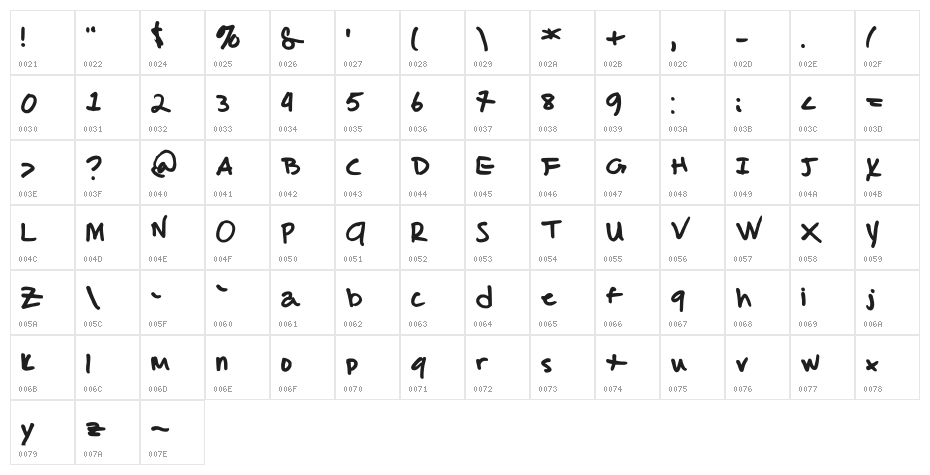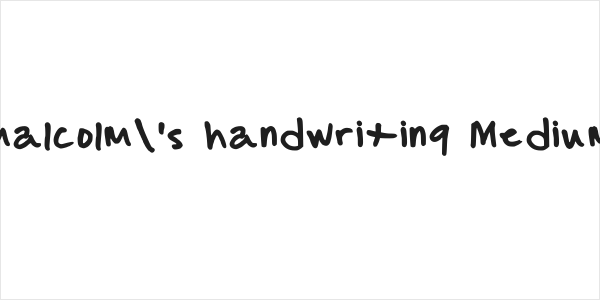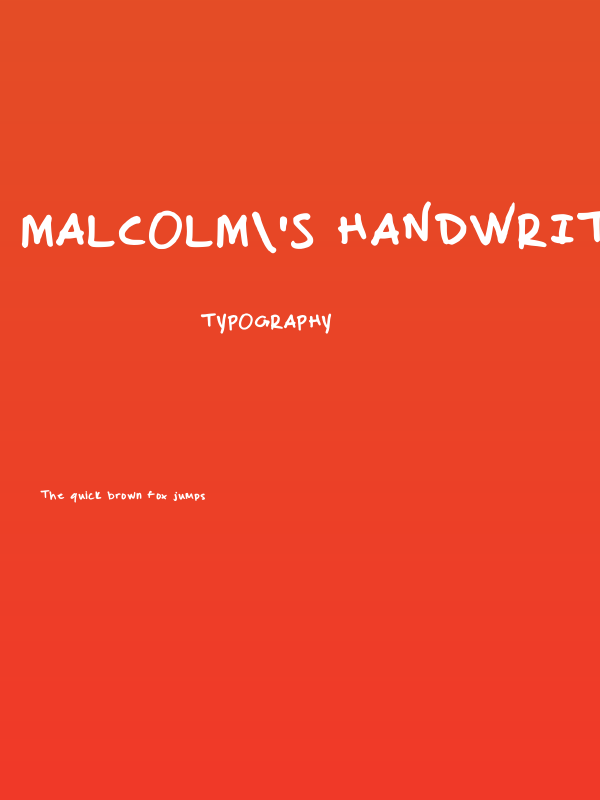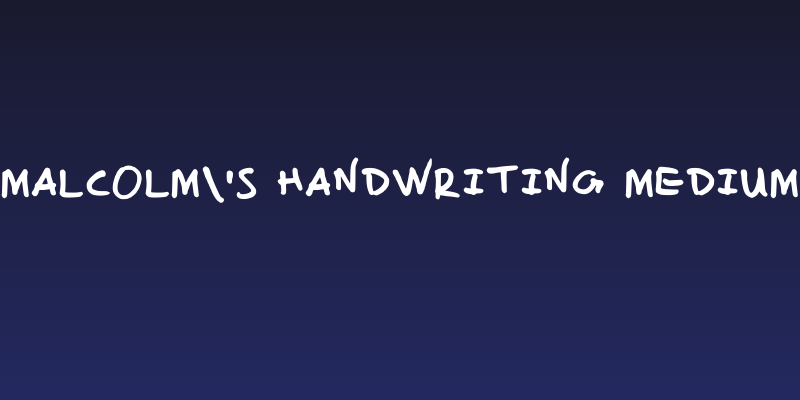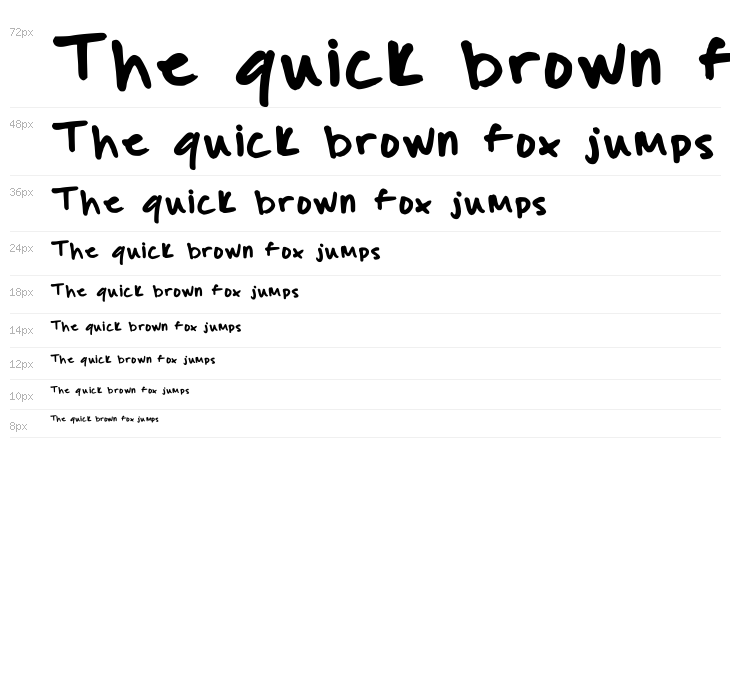
malcolm's handwriting Medium Font
malcolm's handwriting Medium Description
This font exudes a casual and playful handwritten style, characterized by its bold and slightly irregular strokes. The letters have a natural flow, mimicking the spontaneity of real handwriting. The uppercase and lowercase letters maintain a consistent style, with rounded edges and a slight slant that adds to its informal charm. Numbers and special characters are crafted with the same playful touch, making them easily recognizable and visually appealing. The overall appearance is friendly and approachable, suitable for projects that require a personal touch.
| Use Case | Headlines, Informal text, Branding |
| Proposed Projects | Ideal for greeting cards, personal notes, informal invitations, children's books, and playful branding projects. |